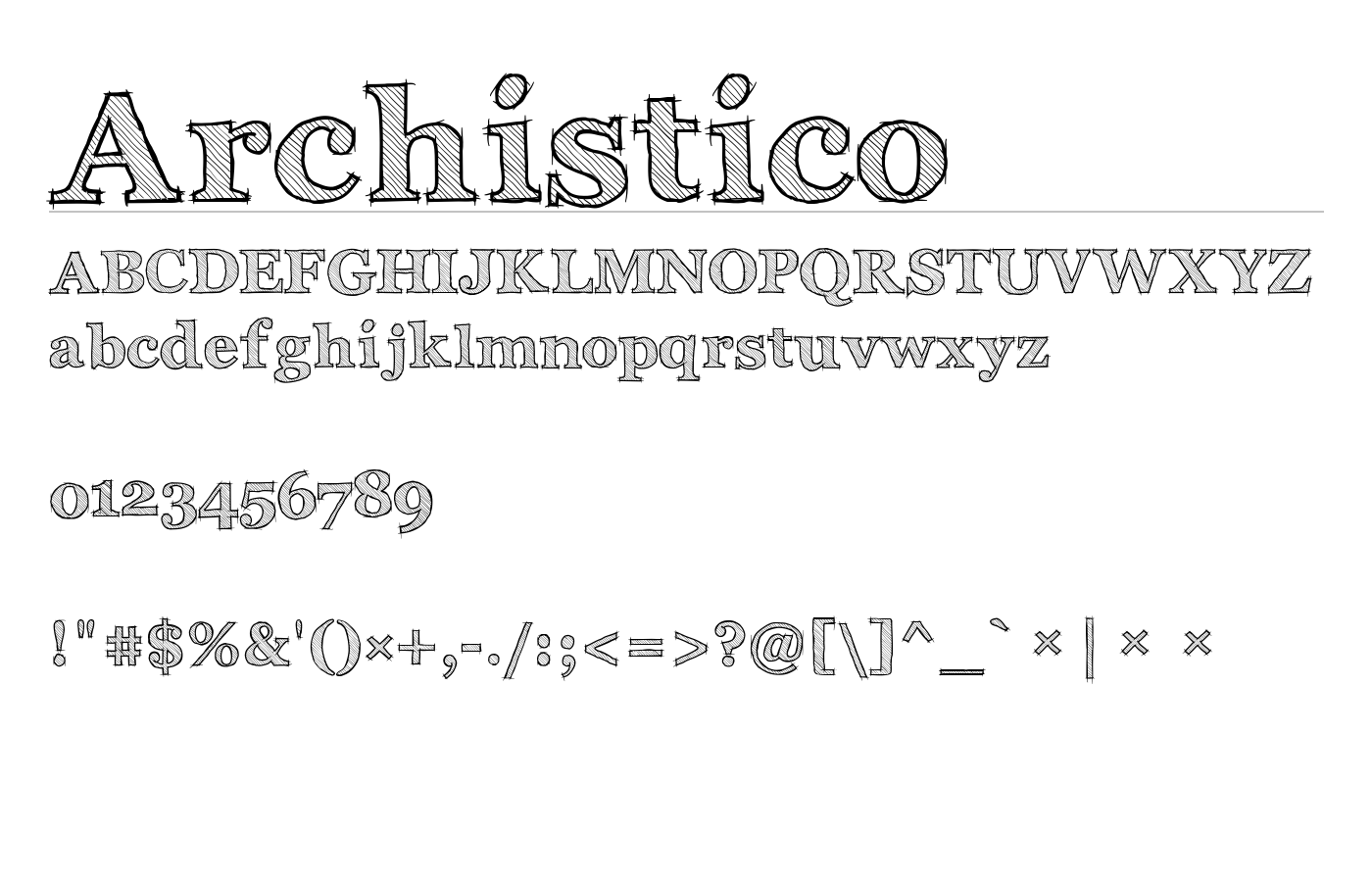
Archistico is a unique serif font that combines classic structure with a hand-drawn, sketch-like texture, giving it a creative and architectural feel. Its moderate weight, balanced proportions, and detailed line work make it ideal for design projects that seek a blend of traditional elegance and artisanal charm, perfect for logos, editorial headings, and artistic branding. This font brings a sophisticated yet approachable personality, making it great for designs that want to stand out with a handcrafted touch.
Archistico Font
About Archistico Font
| Font family | Archistico Font |
| Designer | Emilie Rollandin |